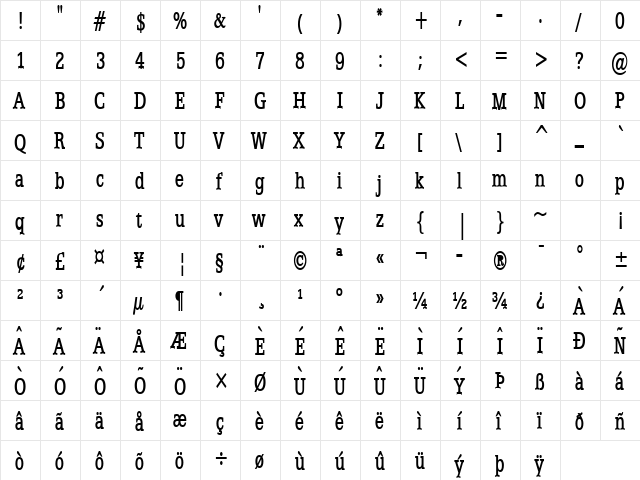
Eggo Thin Bold
Design Context for Eggo Thin Typeface
Eggo Thin is a composed and adaptable typeface that performs quietly and consistently across a wide range of design contexts. Its bold stroke weight gives it real presence on the page.